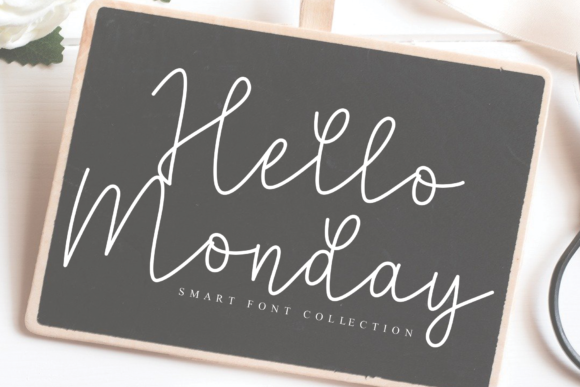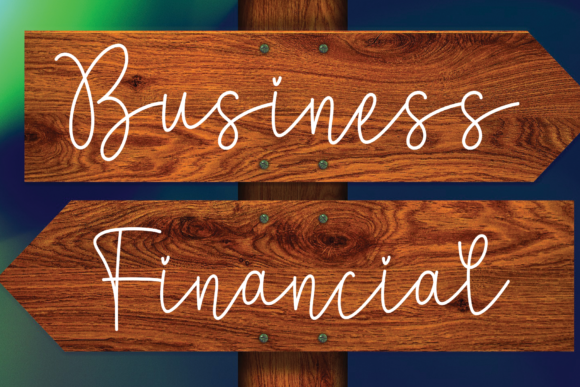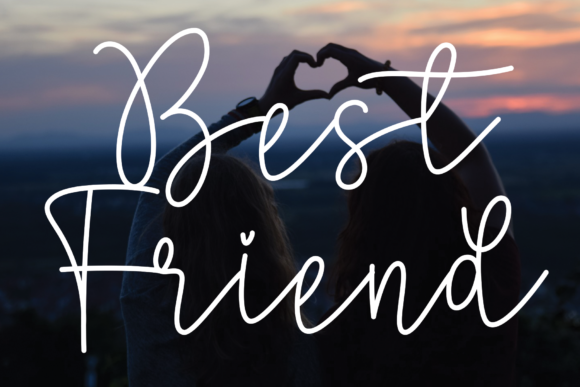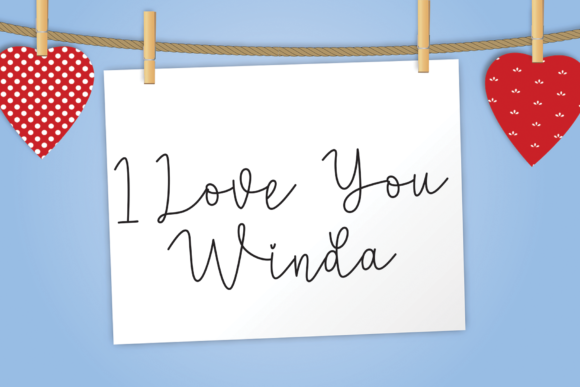
Introduction to Coffee Valentine Font
As a designer, there’s nothing quite like that moment when a project comes together in a way that feels truly unique and special. It’s the perfect blend of creativity, inspiration, and a dash of personality. For me, that moment often starts with a font – a single, elegant letter that sets the tone for the entire design. And one font that never fails to deliver is the Coffee Valentine Font.
This beautiful script font is a designer’s dream come true, with its thin lines and elegant curves that add a touch of sophistication to any project. Whether you’re working on a wedding invitation, a thank you card, or a logo, the Coffee Valentine Font is the perfect choice for adding a personal and creative touch.
Key Features of Coffee Valentine Font
- High-quality, elegant script font perfect for creative projects and design resources.
- Includes a transparent background, allowing for easy layering and customization in design software.
- Features a unique, handwritten style with subtle flair and movement, adding a touch of romance to any design project.
- Perfect for use in invitations, quotes, and other creative applications where a touch of whimsy is desired.
Honest Review: Coffee Valentine Font
I recently stumbled upon the Coffee Valentine Font and decided to give it a try for my latest creative project. I was drawn in by its unique aesthetic and decided to download it for free to see if it would be a good fit. As a designer, I appreciate high-quality design resources that can elevate my work.
- ✨ The font’s quirky and romantic feel is perfect for Valentine’s Day or any other occasion that calls for a touch of whimsy.
- ✨ The transparent background option is a nice touch, allowing me to easily combine the font with other design elements.
- ✨ The font’s high quality is evident in its crisp lines and well-defined characters.
However, I did encounter a few limitations. ⚠️ The font may not be suitable for large blocks of text, as the unique design can make it difficult to read.
Overall, I’m impressed with the Coffee Valentine Font. While it may not be the most versatile font, it’s a great addition to any design resource library. Its unique aesthetic and high quality make it a great choice for creative projects where you want to add a touch of personality.
To get the most out of the Coffee Valentine Font, use it in creative projects such as Valentine’s Day cards, invitations, and social media graphics. You can also use it in high-quality design projects with a transparent background for a professional look.
The Coffee Valentine Font is perfect for:
- Valentine’s Day projects
- Wedding invitations and decorations
- Design projects with a romantic or vintage theme